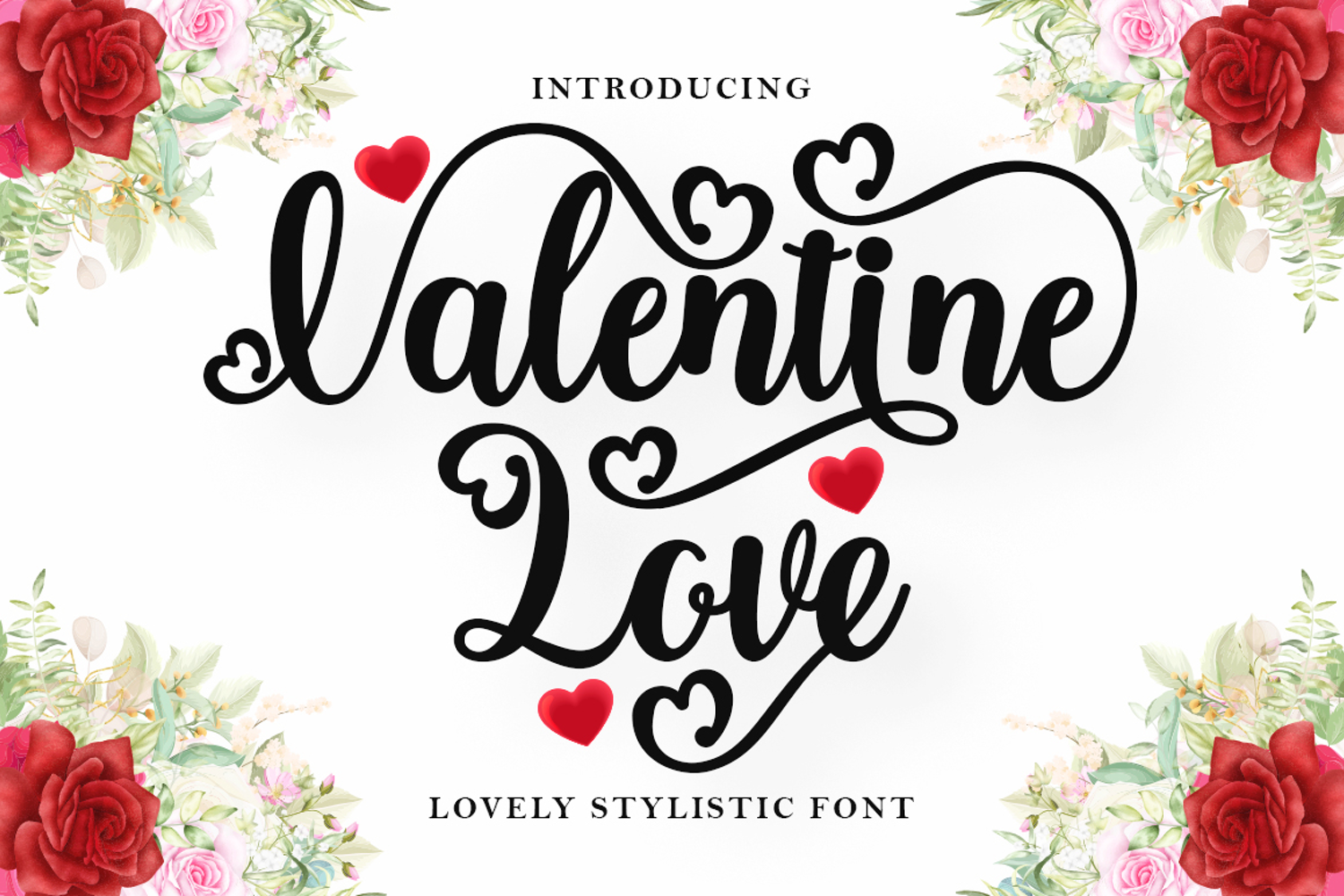
Valentine Love
Valentine Love is a modern script font with a classic and elegant touch.
Valentine Love is sleek, clean, feminine, sensual, glamorous, simple, and highly legible thanks to its many beautiful letter connections. I also offer a number of stylish alternatives for some of the letters. Its classic style is perfect for use in various formal applications such as invitations, labels, restaurant menus, logos, fashion, makeup, stationery, novels, magazines, books, greeting/wedding cards, packaging, labels, or any kind of advertising.